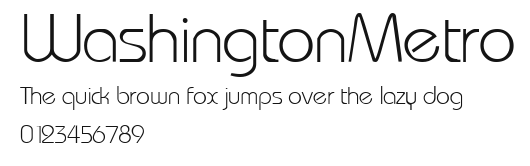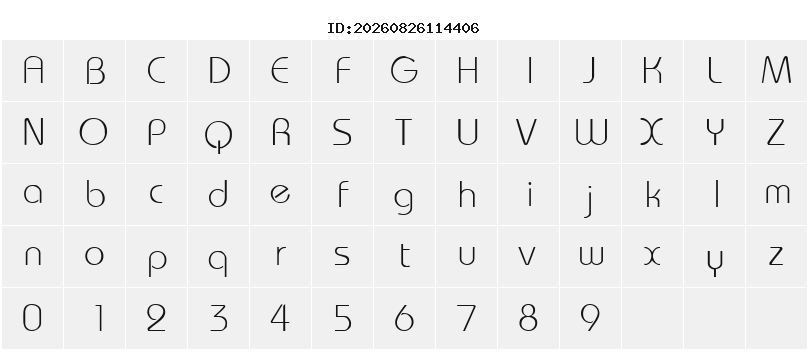
About WashingtonMetro.ttf
WashingtonMetro.ttf is a modern, elegant sans-serif font designed for ultimate readability and visual harmony. Perfect for branding, headlines, web design, and print materials.